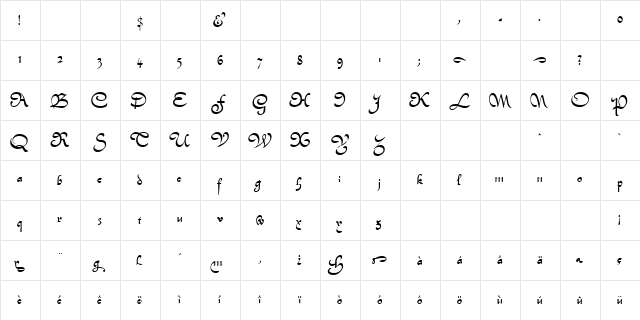
Civi Regular
Design Context for Civi Typeface
Civi is a composed and adaptable typeface that performs quietly and consistently across a wide range of design contexts.